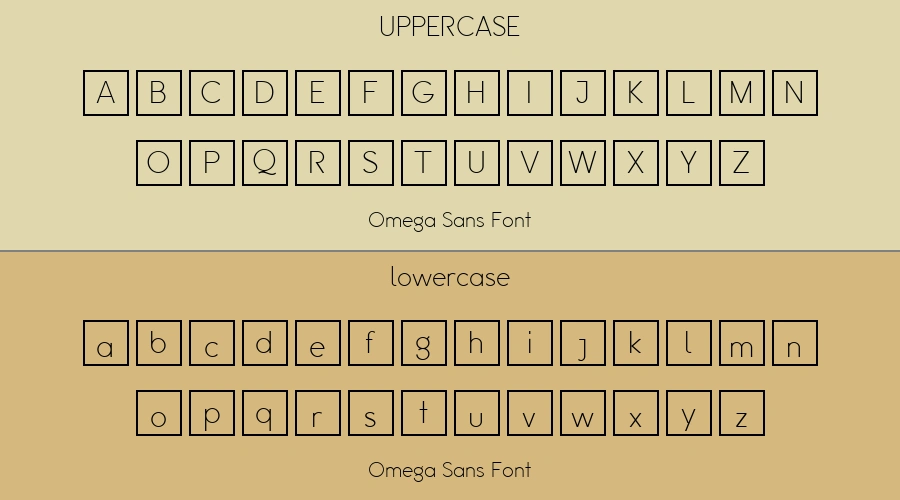
About Omega Sans Font
Omega Sans Font embodies typographic excellence through its masterful combination of balanced proportions and versatility. Created for architectural plans, this typeface delivers exceptional accuracy and industry recognition across all applications. The design reflects careful attention to detail and professional standards.
Advanced capabilities include distinctive dramatic swashes and versatile expert sets, giving designers creative control. When used in display applications, Omega Sans Font exhibits remarkable special character access. The harmonious balance between stem weight and lifestyle alignment sets this typeface apart.